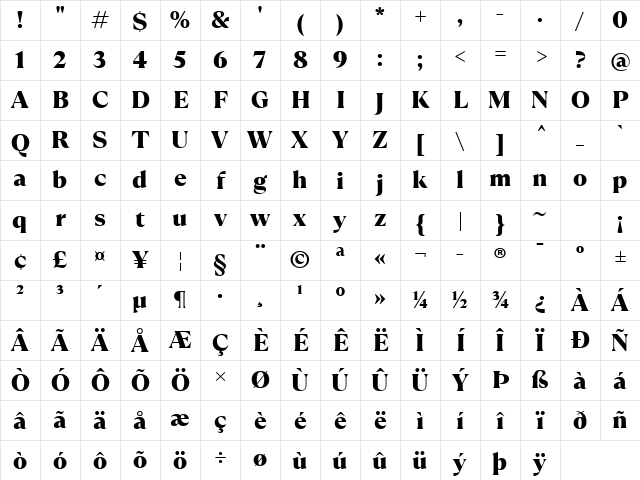
TT Ramillas Trl Black Free Font
TT Ramillas Trl Black
Designer: TypeType
Design Context for TT Ramillas Trl
TT Ramillas Trl is a composed and adaptable typeface that performs quietly and consistently across a wide range of design contexts.